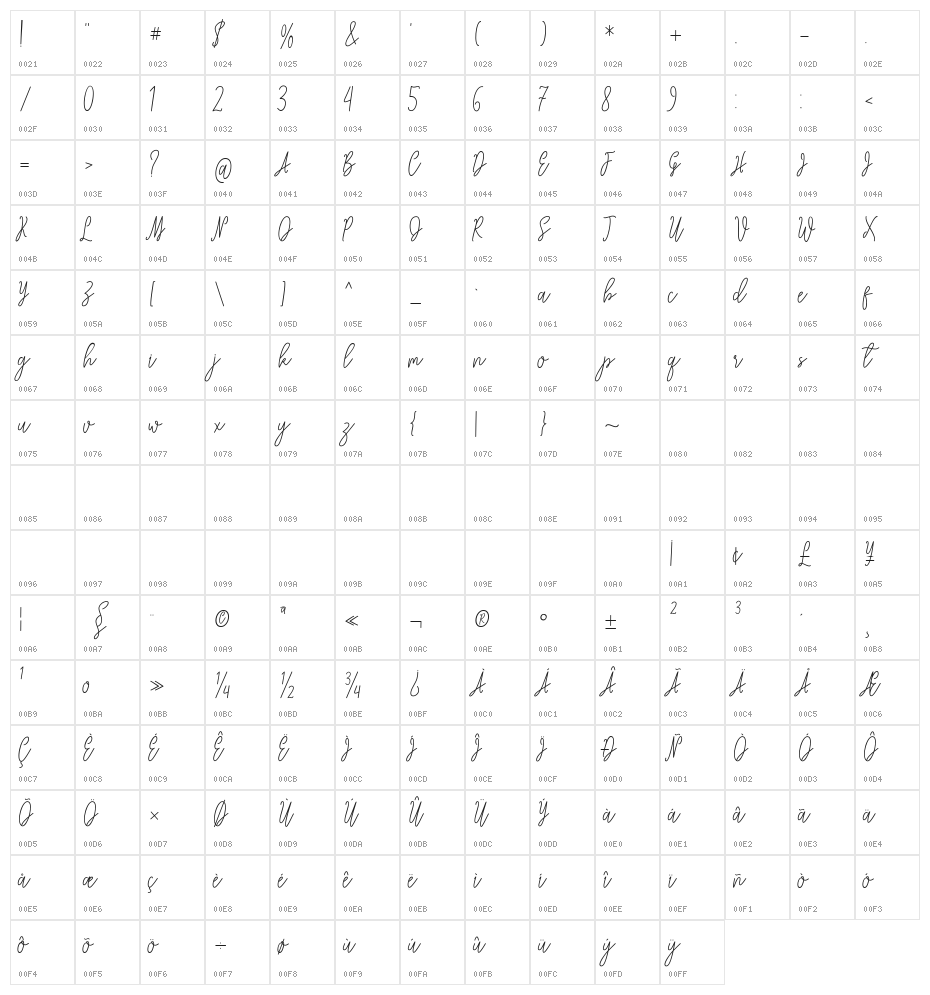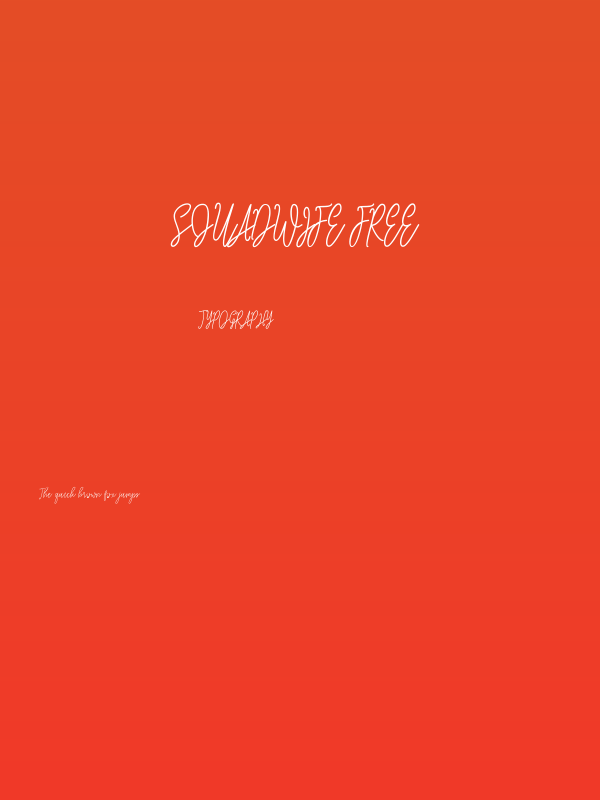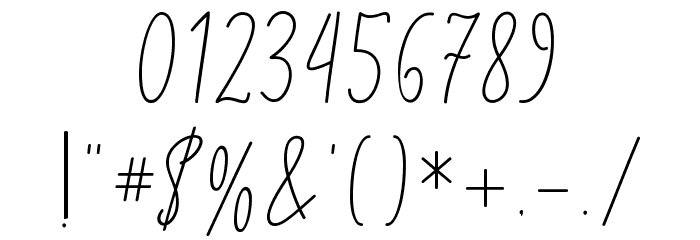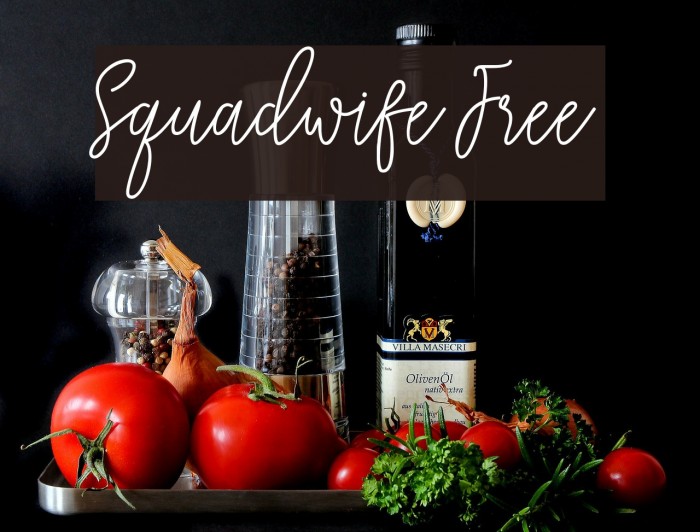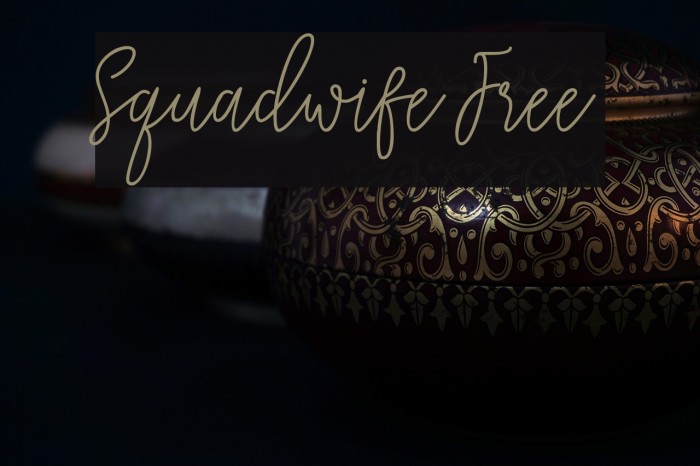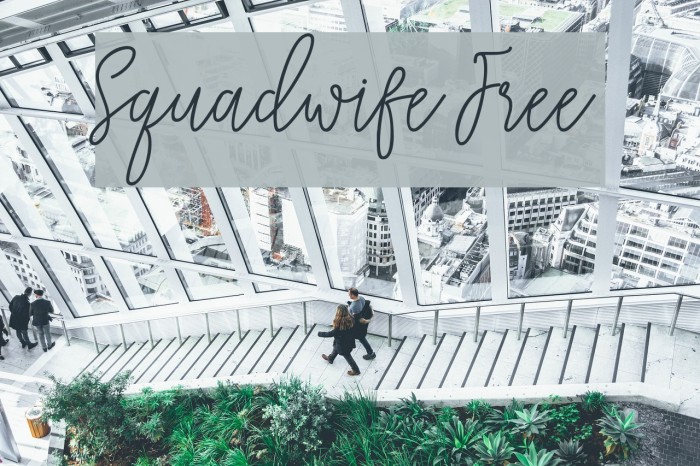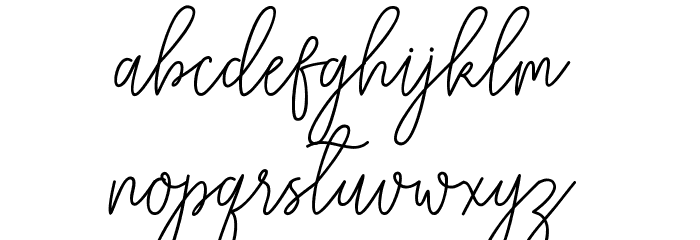
Squadwife Free Font
Squadwife Free Description
This font features a delicate and flowing script style, characterized by its elegant, cursive letterforms. Each character is crafted with a consistent stroke width, giving it a harmonious and smooth appearance. The uppercase letters are slightly taller and more pronounced, while the lowercase letters maintain a graceful and fluid connection. The numerals and special characters complement the overall aesthetic, adding to its versatility. This font exudes a sense of sophistication and charm, making it suitable for a variety of creative applications.
| Overall Style | Elegant |
| Use Case | Logos, Invitations, Decorative text |
| Proposed Projects | Ideal for wedding invitations, greeting cards, branding, and elegant packaging designs. |